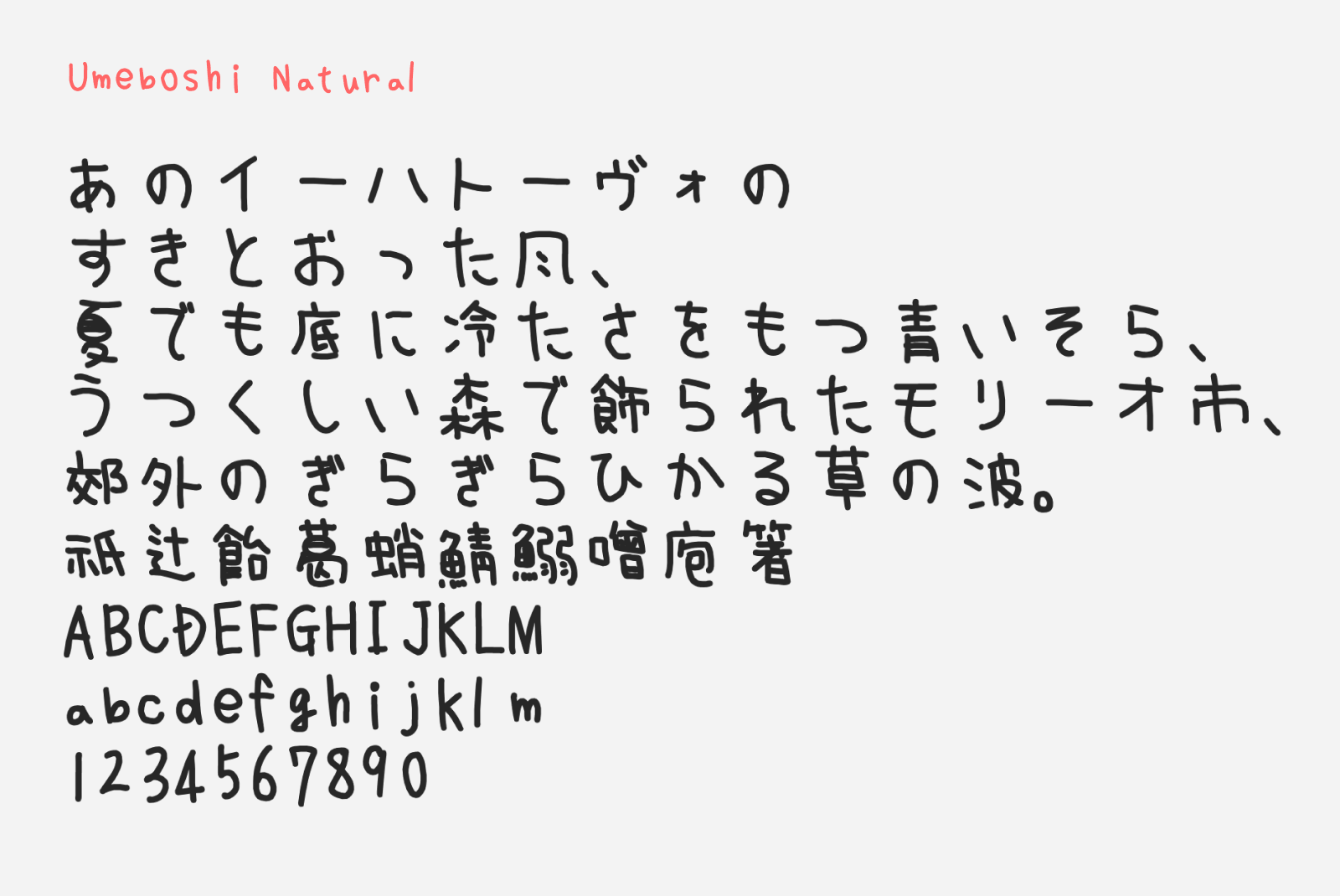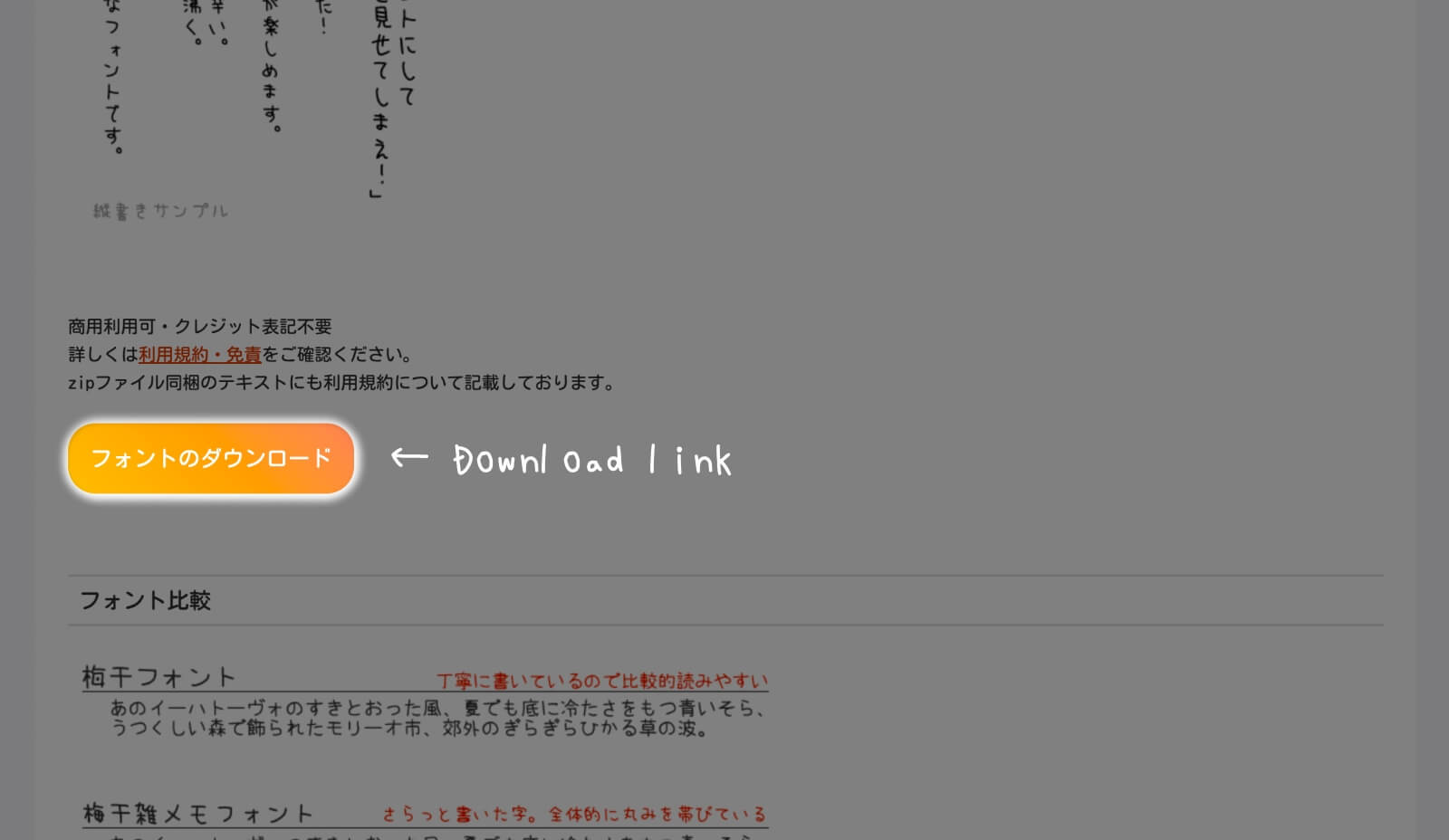
Umeboshi Natural
Umeboshi Natural (梅干ナチュラル) is a free Japanese handwriting font created by designer toga. This isn’t a font that’s been cleaned up, normalized, or made to look “naturally hand-drawn.” It is the creator’s actual handwriting, captured as-is: uneven character sizes, wobbly baselines, strokes that don’t quite sit where they’re supposed to. The description on the font page calls the writing “a little bad” (ちょっとヘタ), and that’s exactly what makes it appealing. When you want a handwritten feel that actually feels hand-written rather than polished and rehearsed, that’s the sweet spot this font occupies.
One of the more interesting design details is the inclusion of abbreviated kanji (略字) — simplified shorthand forms that Japanese writers naturally use when jotting things down quickly. These apply mainly to kanji with the 門-radical (gate enclosure), where fully formed characters give way to the kind of breezy shorthand you’d see in someone’s actual notes. It’s a small touch, but it adds a layer of authenticity that separates this from fonts that merely imitate imperfection.
The font supports a wide range of Japanese characters including hiragana, katakana, half-width katakana, alphanumerics, and common symbols like ♥ and ★. Kanji coverage reaches JIS Level 1, 2, and 3, which covers a large portion of everyday and literary use. Vertical writing is also supported. It’s a TrueType font and free for commercial use with no credit required.
- Hiragana and Katakana
- Kanji (JIS Level 1, 2, 3)
- Alphanumerics
- Latin, Cyrillic and Greek scripts
- Symbols and Punctuations